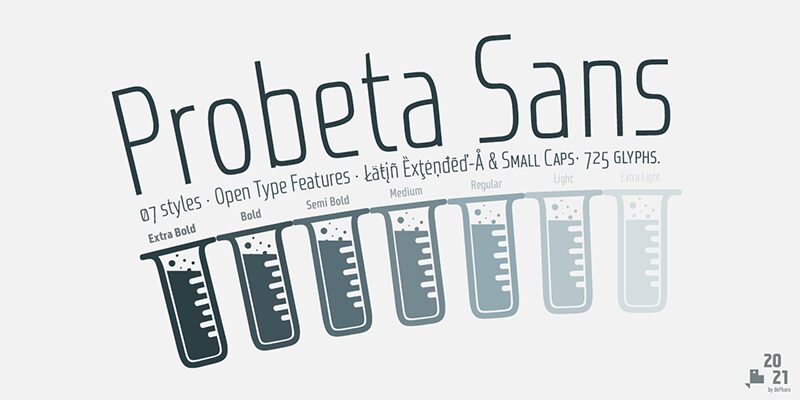
Probeta Light font is an exclusive Sans Serif font family, with condensed proportion. The font family consists of 7 weights (Extra Light, Light, Regular, Medium, Semi Bold, Bold and Extra Bold) and the italic versions, with their own personality.
Typeface family with maximum readability, includes Small Caps, perfect for use in graphic design, media, advertising and web. 2021
Probeta is an exclusive Sans Serif typeface family, with condensed proportion. The font family consists of 7 weights (Extra Light, Light, Regular, Medium, Semi Bold, Bold and Extra Bold) and the italic versions, with their own personality.